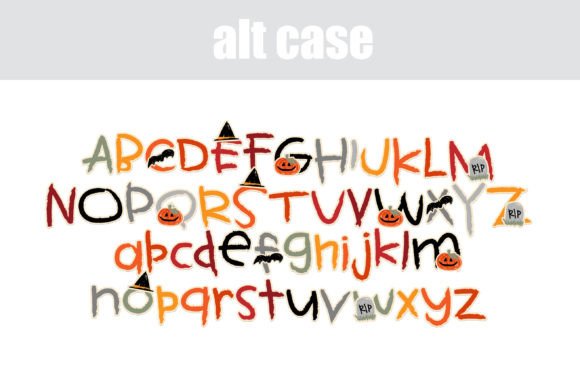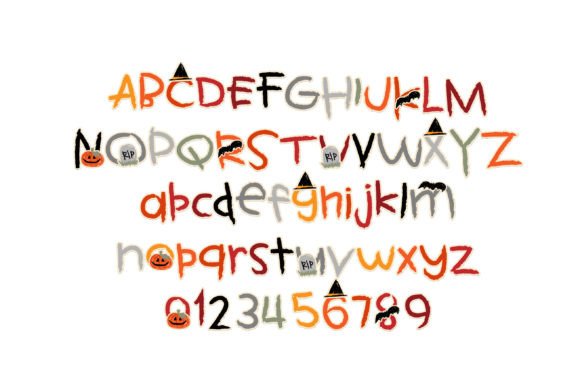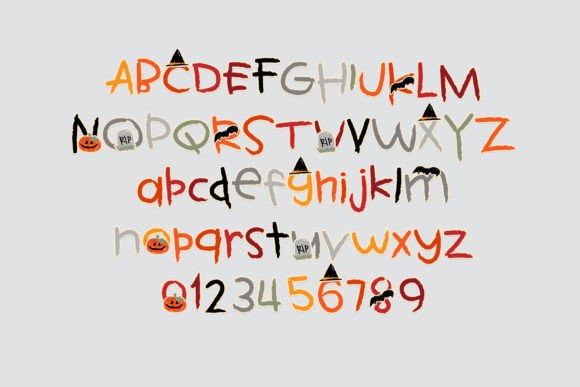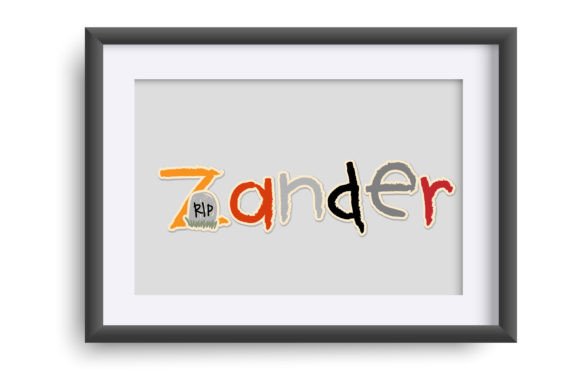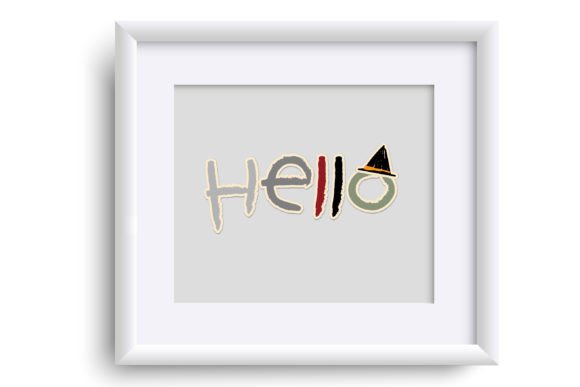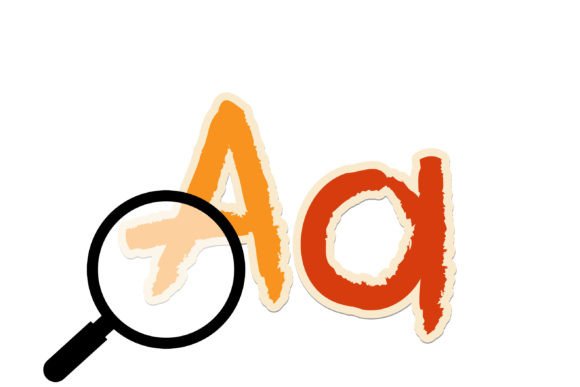
Introduction to Kids Halloween Font Font
Fonts play a crucial role in design, and the Kids Halloween Font font is a typeface that brings both character and versatility to any project. Whether you’re working on a branding project, a website, or a print design, the Kids Halloween Font font offers a unique style that can elevate your work.
This full-color font features a Halloween color palette in childlike lettering with youthful Halloween elements.
There is an alt case w/ additional colors you can access through your system or Silhouetteβs glyph map OpenType full-color (SVG) fonts are installed like any normal .
The Kids Halloween Font font is more than just a typeface β it’s a design tool that helps you communicate your message with style and clarity. Its unique character set and versatile design make it suitable for a wide range of applications, from elegant invitations to bold headlines.
With its carefully crafted letterforms and balanced proportions, the Kids Halloween Font font ensures readability and visual appeal across all mediums.
What makes Kids Halloween Font font special?
The Kids Halloween Font font stands out with its unique design, exceptional readability, and versatility across various design applications.